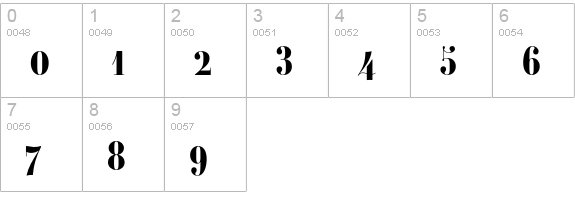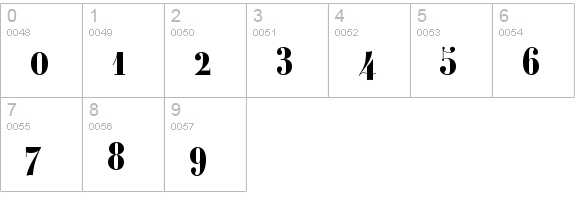
Ambroise Firmin Bold is a strong, high-contrast variant in the Ambroise typeface family \xE2\x80\x94 well suited to headlines, attention-grabbing titles, and strong calls-to-action.
Ambroise Firmin Bold font is a stunning and elegant typeface that exudes sophistication and class. With its bold and modern style, this font is perfect for adding a touch of luxury to any design project. The strong and eye-catching letterforms make a statement while maintaining readability and clarity. Best of all, Ambroise Firmin Bold font is available for free download at FontsMarket.com. This means you can easily access this premium font without any cost, making it a valuable addition to your font collection. Whether you're designing a logo, invitation, or any other creative project, Ambroise Firmin Bold font will elevate your work to the next level. Don't miss out on this fantastic opportunity to enhance your designs with this exquisite typeface.